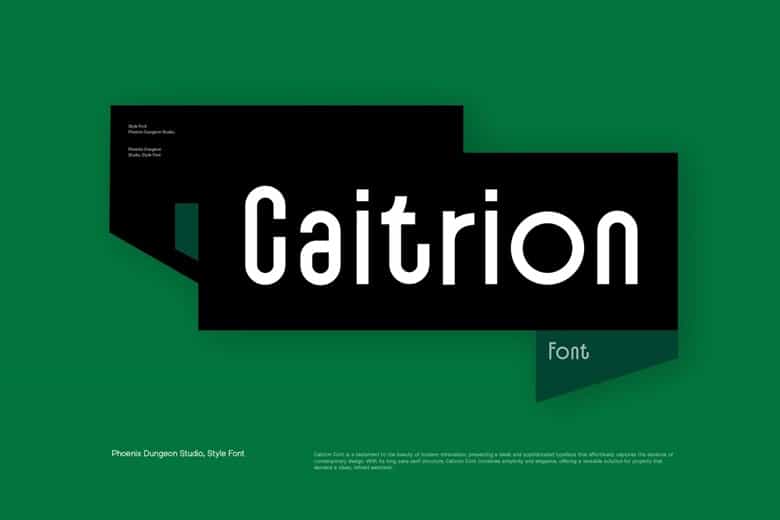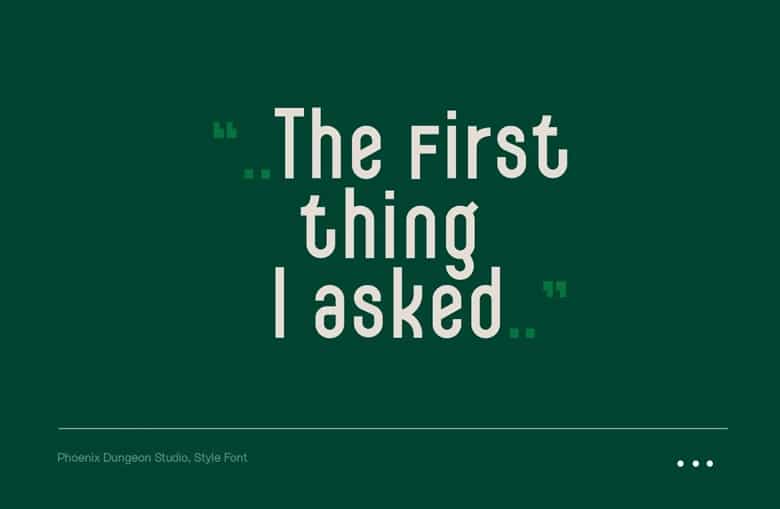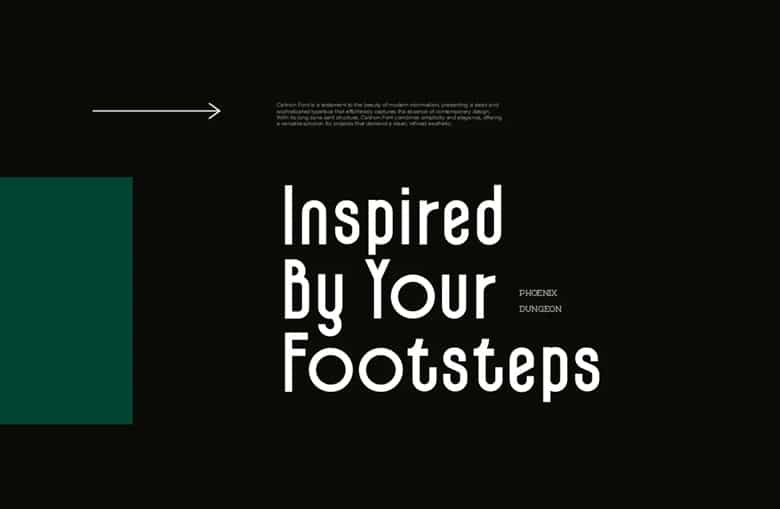
Caitrion is a modern sans serif typeface that embodies the contemporary sophistication and modern design today. Its clean, highly detailed letterforms and details lend to a lean and graceful look, and as such are appropriate for multiple applications, including branding and editorial, as well as digital applications. With its crisp lines and balanced proportions it is both legible and somewhat styled imparting a polished but refined appearance with banal ornament.